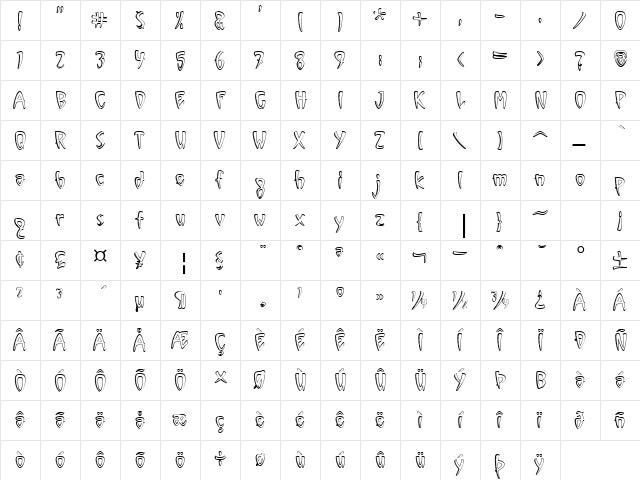
Vinyl Sawtooth Outline ITC TT Regular
Design Context for Vinyl Sawtooth Outline ITC TT Typeface
Vinyl Sawtooth Outline ITC TT brings ornamental detail and strong personality to headlines and identities, where visual impact matters more than quiet functionality.
Font Pairing: Pair with a clean neutral sans-serif for body copy to let Vinyl Sawtooth Outline ITC TT's character lead without overwhelming the composition.
Pro Tip: Use Vinyl Sawtooth Outline ITC TT exclusively at display sizes — it was designed to be seen, not read at length. Let a neutral companion handle body copy.